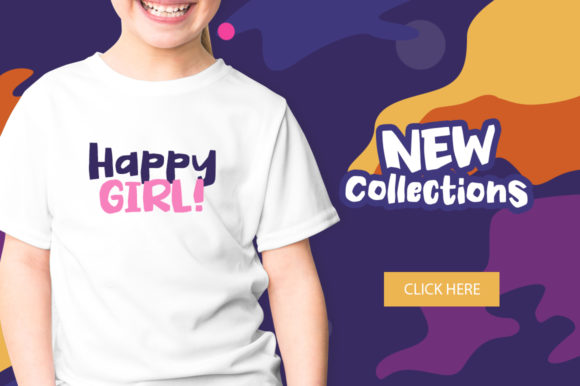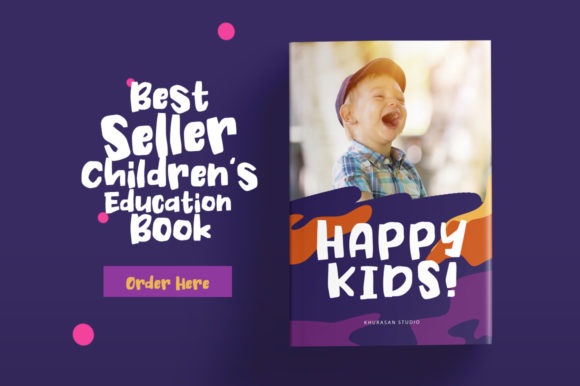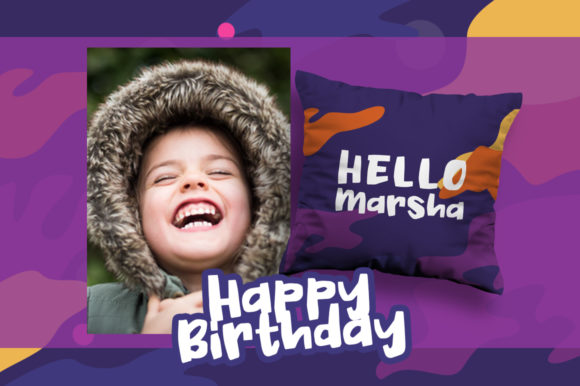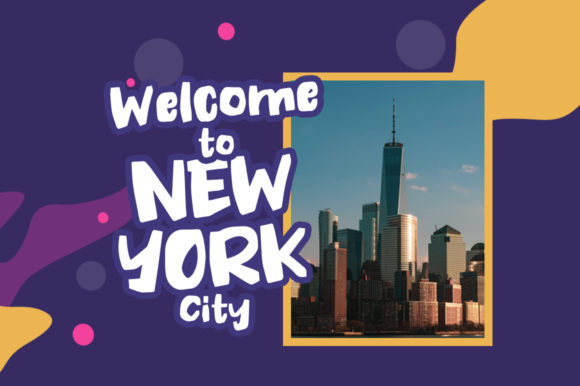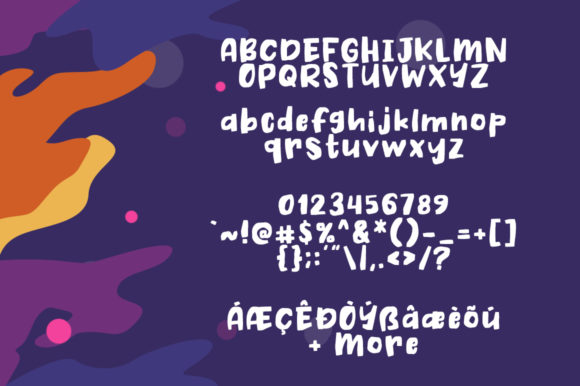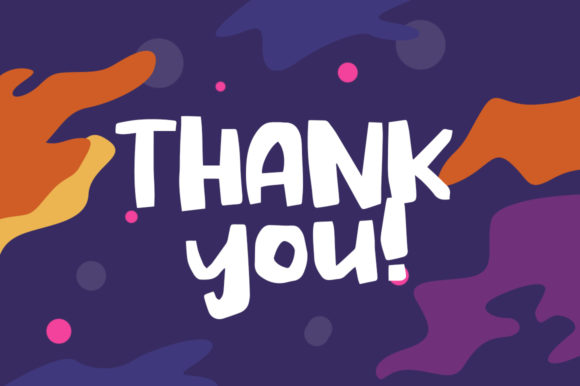
Introducing Gotcha Boom Font: The Ultimate Holiday Display Typeface
Are you looking for a font that can add a dash of fun and cheer to your Christmas-themed design projects? Look no further than Gotcha Boom Font! This bold display typeface is specifically designed to bring a holiday feel to any design idea, making it perfect for designers and crafters alike.
What is Gotcha Boom Font?
Gotcha Boom Font is a fun and bold display typeface that is sure to make a statement in any design project. Its cheerful theme is perfect for adding a touch of holiday magic to your designs, whether you’re working on a Christmas card, holiday poster, or festive website.
With its unique and playful design, Gotcha Boom Font is sure to stand out from the crowd. Its bold and eye-catching letters are perfect for grabbing attention and adding a dash of personality to your designs.
Features of Gotcha Boom Font
So, what makes Gotcha Boom Font so special? Here are just a few of its key features:
- Bold and eye-catching design: Gotcha Boom Font is designed to make a statement, with bold and eye-catching letters that are sure to grab attention.
- Cheerful theme: The font’s cheerful theme is perfect for adding a touch of holiday magic to your designs.
- Perfect for Christmas-themed designs: Whether you’re working on a Christmas card, holiday poster, or festive website, Gotcha Boom Font is the perfect choice.
How to Use Gotcha Boom Font
Using Gotcha Boom Font is easy! Here are a few tips to get you started:
- Pair it with other fonts: Gotcha Boom Font pairs perfectly with other fonts, such as sans-serif fonts like Arial or Helvetica.
- Use it for headings: Gotcha Boom Font is perfect for headings and titles, where its bold and eye-catching design can really make an impact.
- Add some holiday cheer: Use Gotcha Boom Font to add a touch of holiday cheer to your designs, whether you’re working on a Christmas card or holiday poster.
Benefits of Using Gotcha Boom Font
So, why should you use Gotcha Boom Font in your design projects? Here are just a few benefits:
- Adds a touch of personality: Gotcha Boom Font adds a touch of personality and whimsy to your designs, making them stand out from the crowd.
- Perfect for holiday designs: The font’s cheerful theme makes it perfect for holiday designs, such as Christmas cards and holiday posters.
Tips and Tricks for Getting the Most Out of Gotcha Boom Font
Here are a few tips and tricks for getting the most out of Gotcha Boom Font:
- Experiment with different colors: Gotcha Boom Font looks great in a variety of colors, so don’t be afraid to experiment and find the perfect hue for your design.
- Use it with graphics: Gotcha Boom Font pairs perfectly with graphics and illustrations, making it perfect for adding a touch of personality to your designs.
- Try it with different effects: Gotcha Boom Font looks great with different effects, such as glitter or snowflakes, making it perfect for adding a touch of holiday magic to your designs.
In conclusion, Gotcha Boom Font is the perfect choice for designers and crafters looking to add a touch of holiday cheer to their designs. With its bold and eye-catching design, cheerful theme, and ease of use, it’s the perfect font for any Christmas-themed design project.